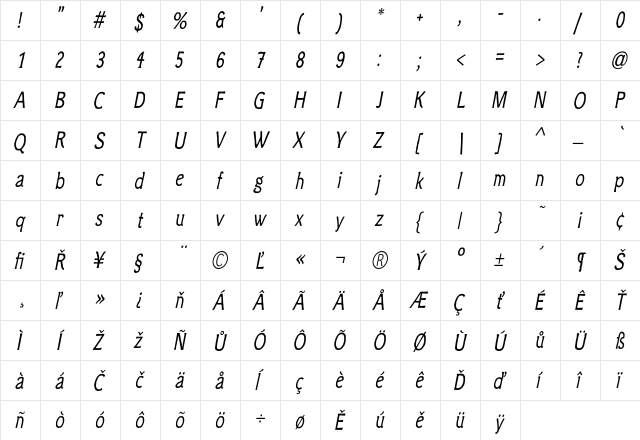
Clichee Oblique
Design Context for Clichee Typeface
Clichee takes a measured approach to typography — its balanced proportions and neutral character make it a reliable workhorse for both digital and print work. The dynamic lean of this cut emphasises speed and emphasis in any layout.
Pro Tip: Use Clichee for emphasis, pull quotes, and subheadings where its slanted energy can add rhythm to the layout.